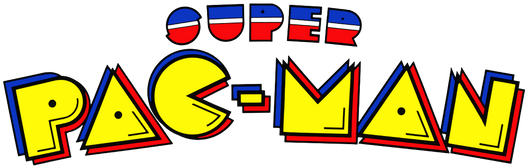
Finally, after almost 2 years of work (and procrastination), I present a recreation of the original font used for Pac-Man logos and merchandise.This is different than other fonts claiming to be the "Pac-Man" font since these were traced from many different official sources to be certain they're as accurate as possible. Each character is formatted as a vector SVG file so that things like layers and color can be easily changed.
Update 6/3/2022 - Every single character has been changed to be more accurate. A couple more alternate letters and numbers are added as well.
Update 7/4/2022 - Added two more numbers and the × symbol.
Update 1/18/2024 - Added number 2.